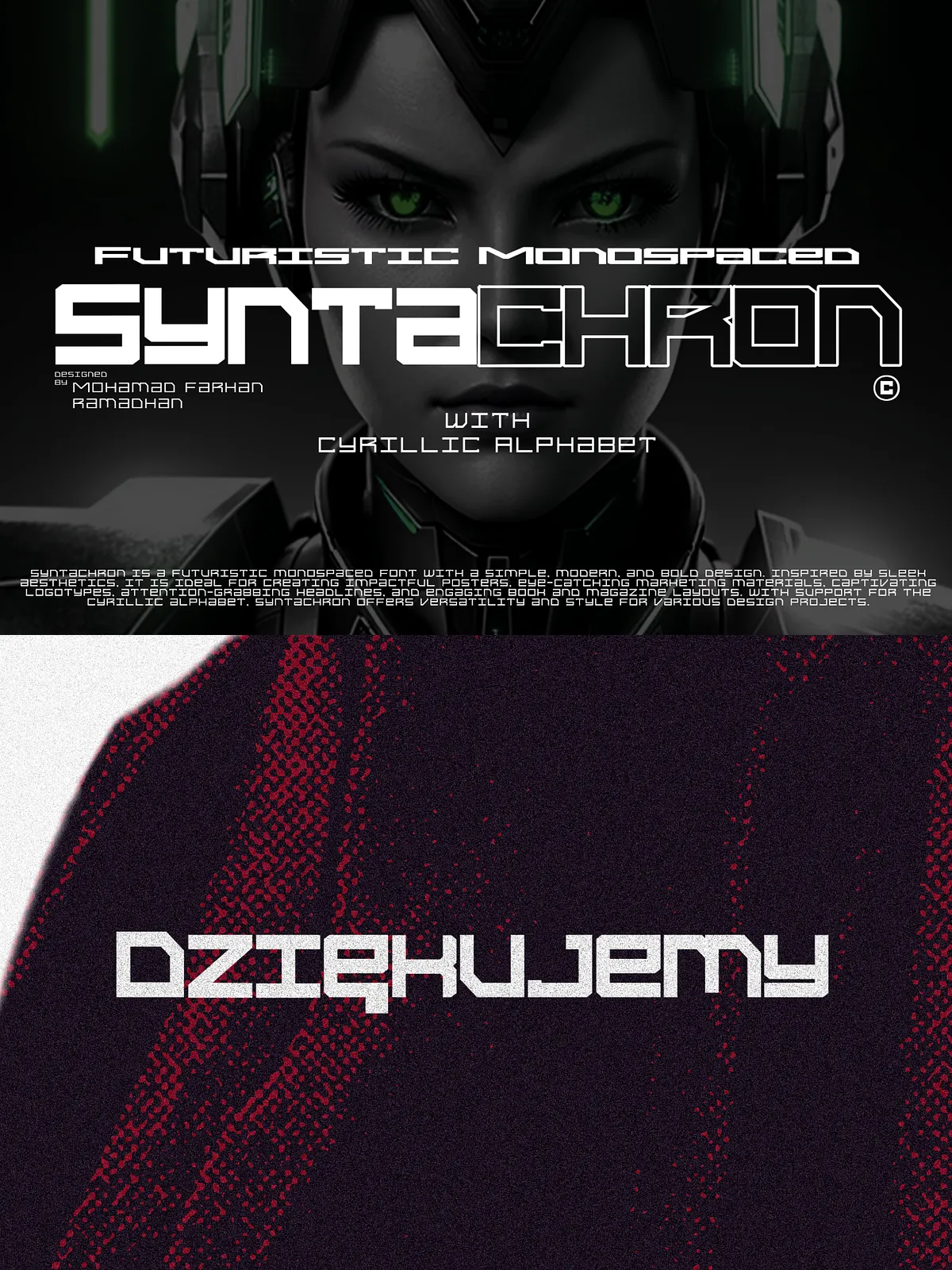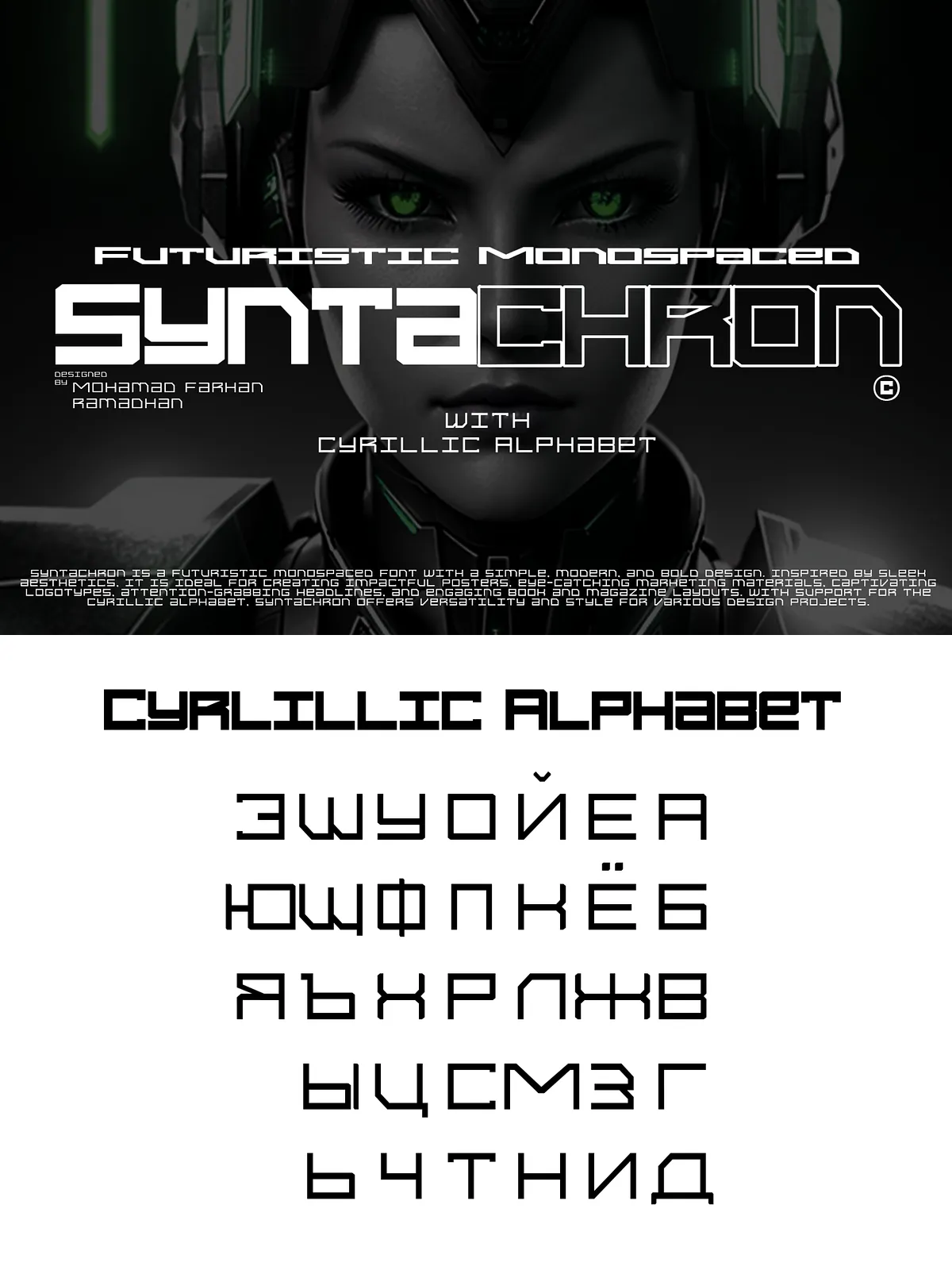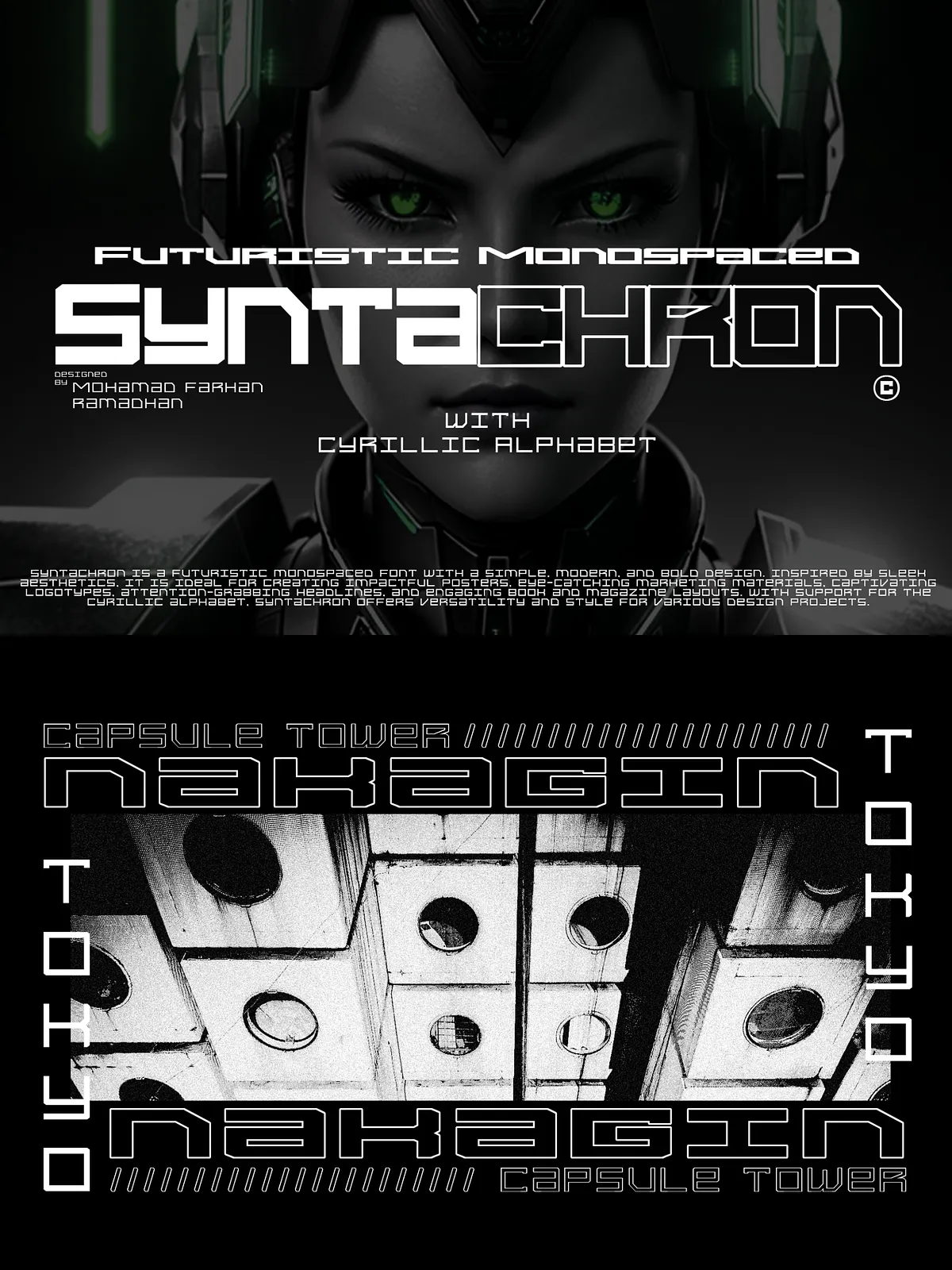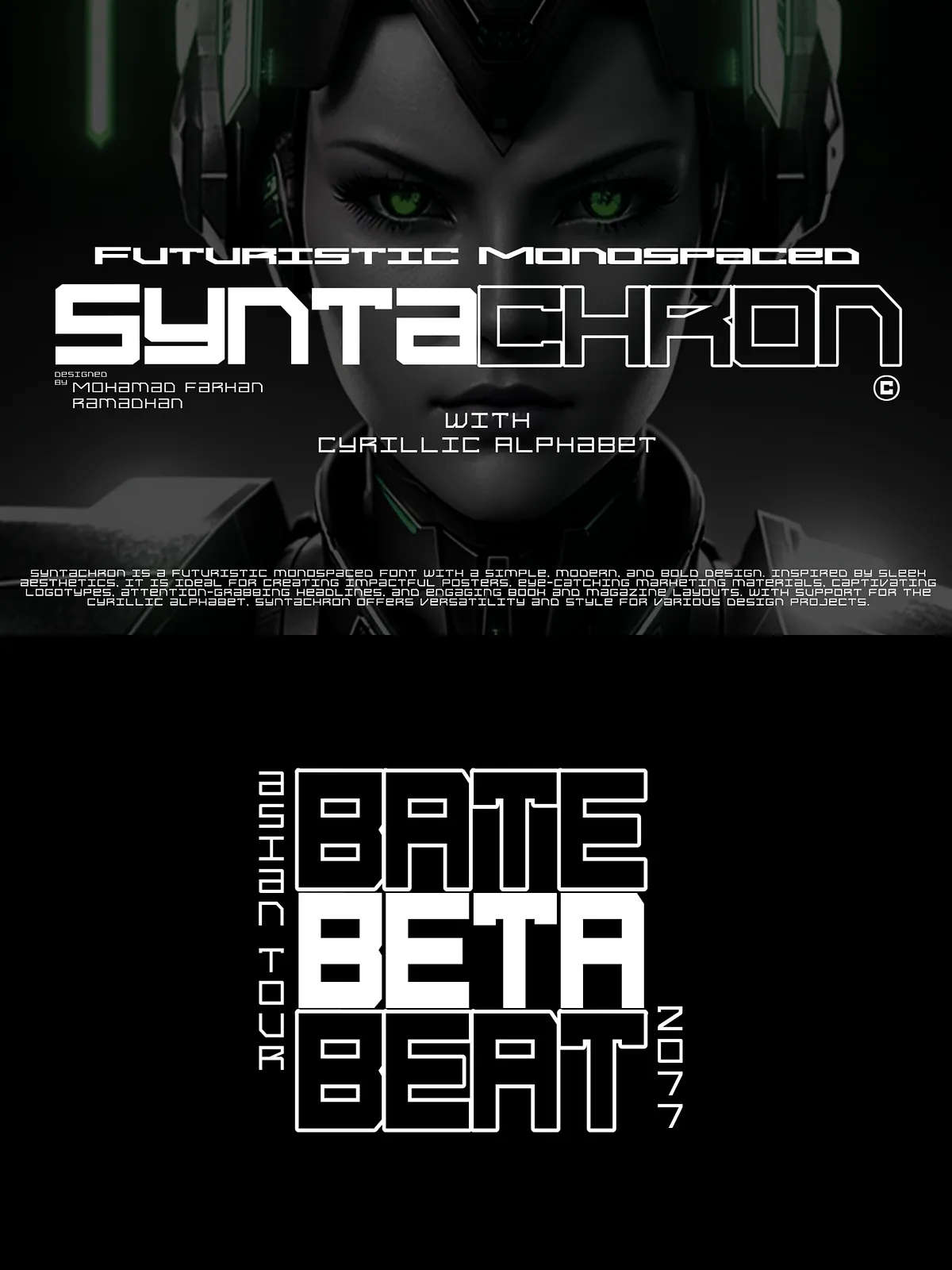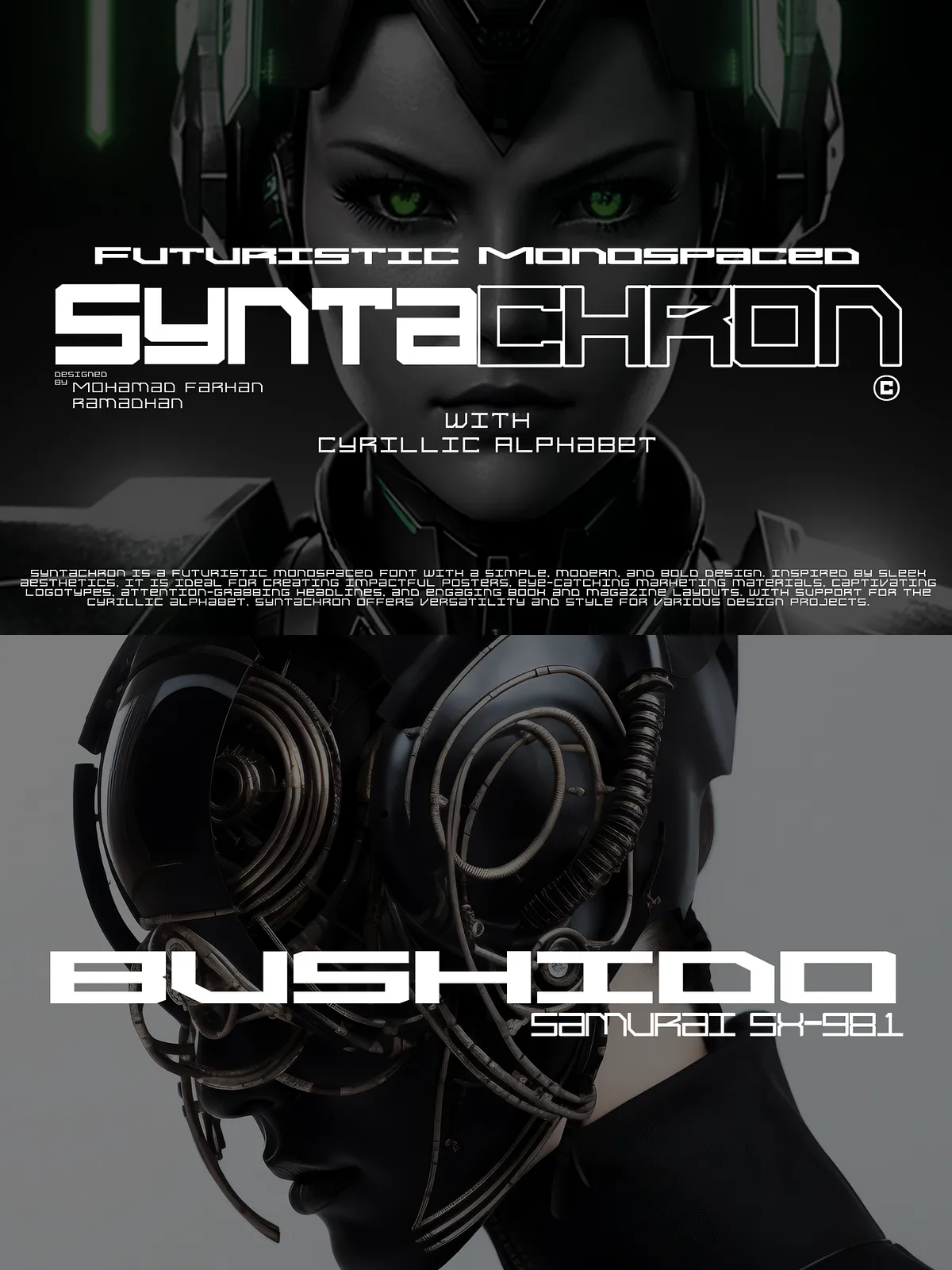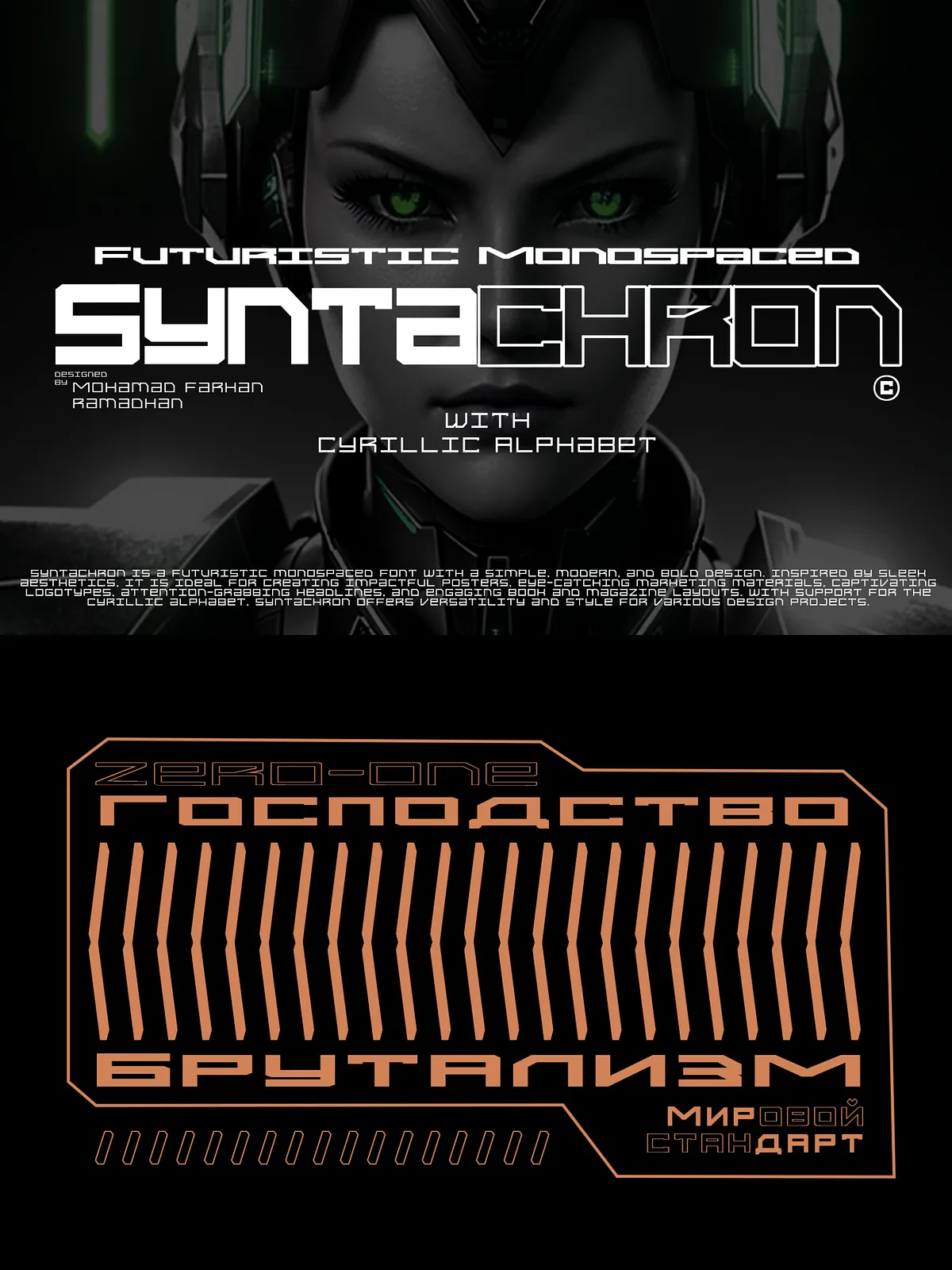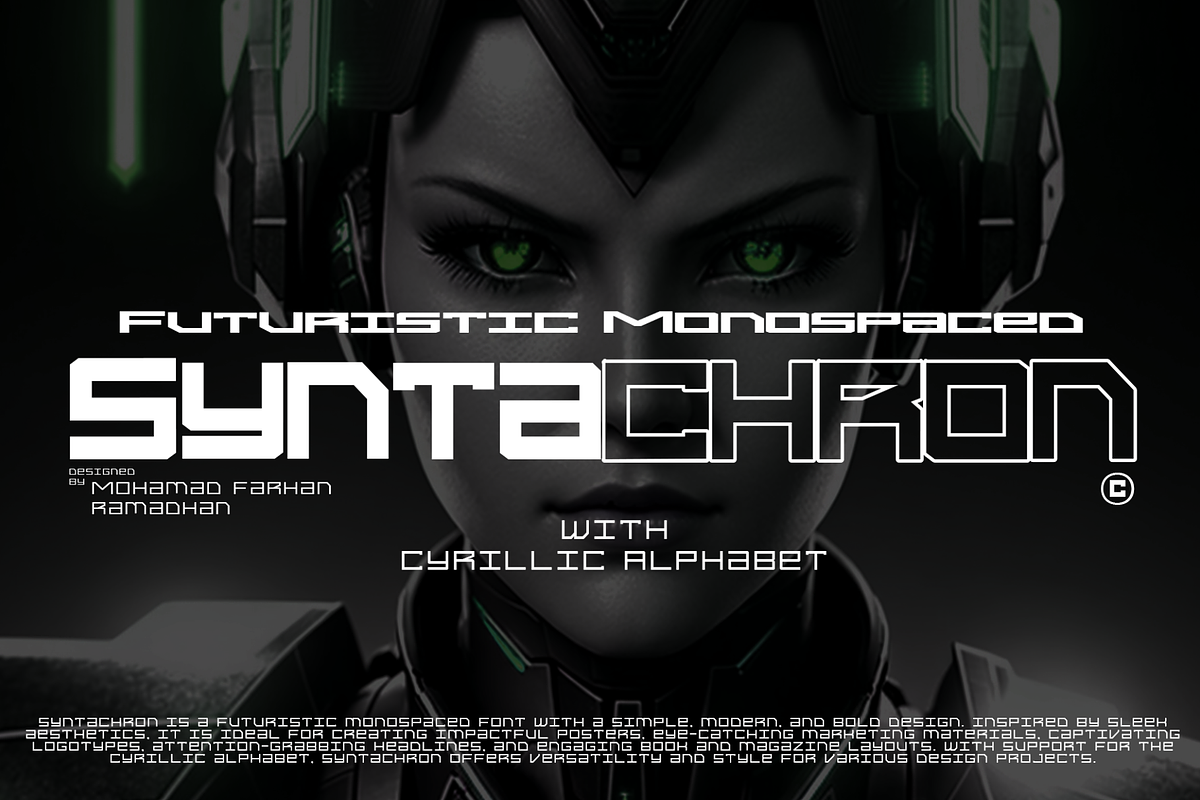
Syntachron is a modern monospaced typeface engineered for designers who demand clarity, presence, and flexibility. Built around a clean geometric skeleton, Syntachron blends simplicity with bold character to deliver an unmistakably contemporary voice. The family’s 12 variable styles let you shape weight and expression precisely, enabling consistent typographic systems across digital and print work. Whether you craft striking posters, distinctive logos, powerful headlines, or tightly controlled editorial layouts, Syntachron supplies a confident, future-forward tone that captures attention and communicates with authority.
12 Variable Styles — Precision and Flexibility
Syntachron provides 12 variable styles that adapt to diverse design needs. Use subtle weight shifts for refined editorial hierarchies or push extremes for high-impact display work. The variable axis control speeds prototyping and simplifies responsive typography, letting you tune contrast and rhythm without switching files. For guidance on integrating variable fonts into web workflows, see Variable fonts – CSS | MDN.
Clear Cyrillic Support
The typeface includes a polished Cyrillic alphabet, so Syntachron works seamlessly for Eastern European brands, multilingual campaigns, and cross-market publications. The Cyrillic glyphs match the family’s proportions and visual tone, ensuring consistent brand voice across writing systems.
Monospaced Discipline with Modern Attitude
As a monospaced face, Syntachron enforces even rhythm and dependable alignment, which is indispensable for data-driven layouts, code samples, and technical UI components. At the same time, refined terminals, balanced counters, and purposeful spacing preserve an energized, contemporary appearance suited for display uses.
Ideal Use Cases
Syntachron excels wherever bold clarity meets modern identity. Recommended applications include:
- Posters and event promotions that require legible, arresting headlines.
- Branding and logotypes that need a strong, technological personality.
- Marketing collateral—brochures, banners, and ads that demand immediate impact.
- Editorial headlines and magazine layouts where structured rhythm aids hierarchy.
- UI mockups, documentation, and developer tooling where monospaced consistency improves readability.
Design & Production Tips
To get the most from Syntachron, apply these practical recommendations:
- Tune weight and tracking for each breakpoint: tighter tracking works well for large display sizes; slightly more tracking improves legibility for small or dense copy.
- Pair Syntachron with a neutral humanist sans or a soft serif for body copy to soften extended reading tasks while preserving the mono face for structure and emphasis.
- In branding systems, reserve the heaviest variable weights for display marks and logos, and select mid-weights for supportive headings to maintain hierarchy.
Language Support & Open Features
Syntachron supports Latin and Cyrillic scripts and ships with the common glyph set necessary for multilingual projects. The family includes numerals, punctuation, and essential symbols to ensure typographic reliability across marketing, editorial, and UI contexts.